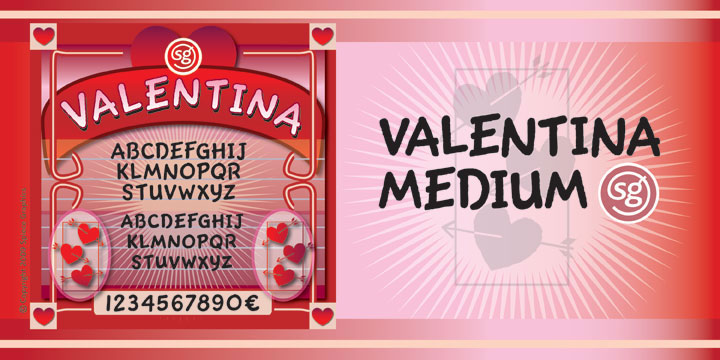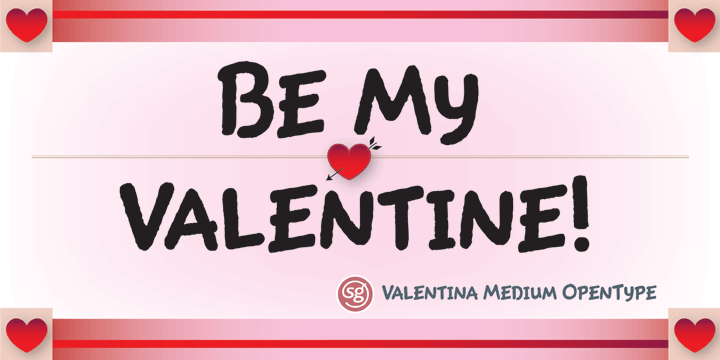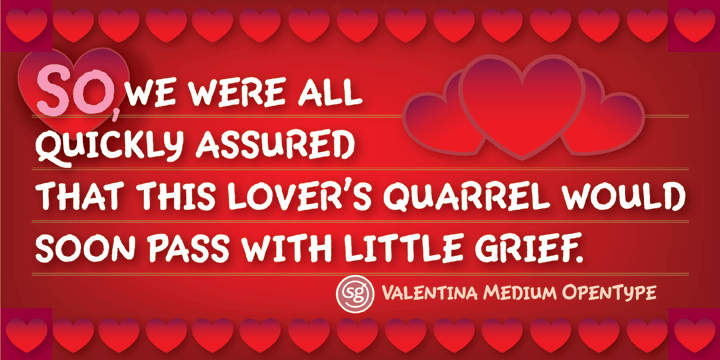
Here's what happens when your trusty felt tip marker takes a trip to cartoonland.
Each of Valentina's plump characters has a rough and splotchy texture. Some letters even bounce up and down like a 3-year old. As cartoon faces go, Valentina is a bit on the imperfect side. But that's normal for a funny face.
Use it in a variety of comical situations. Make convincing captions under your own artwork or design greeting cards with it. You can even blow it up to huge sizes to create a wild and crazy look.
Valentina Medium is now available in the OpenType Std format. Some new characters have been added to this OpenType version as stylistic alternates. This advanced feature works in current versions of Adobe Creative Suite InDesign, Creative Suite Illustrator, and Quark XPress. Check for OpenType advanced feature support in other applications as it gradually becomes available with upgrades.